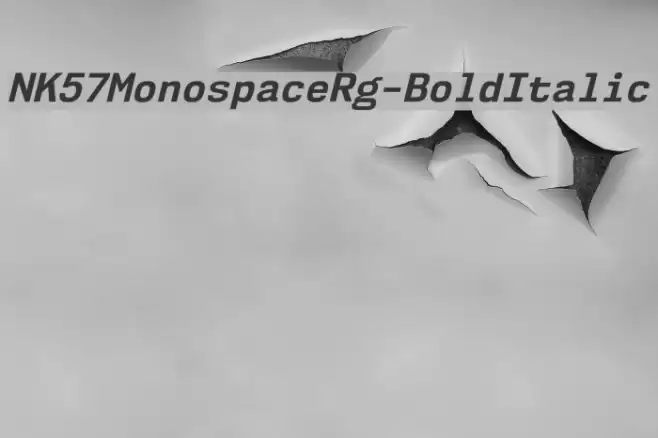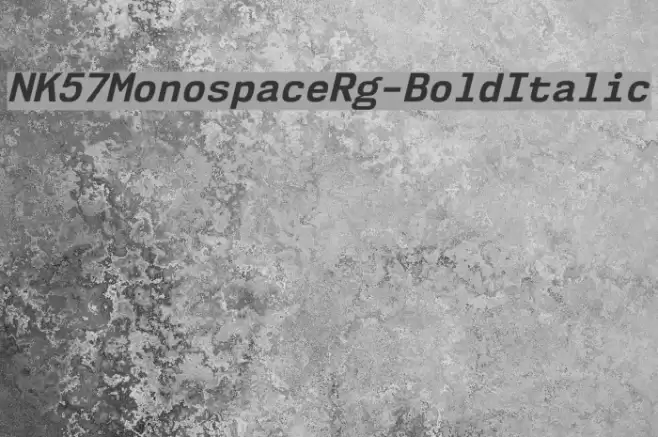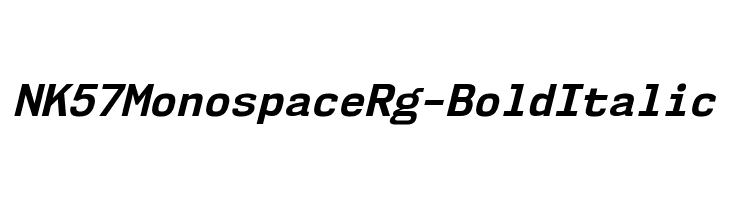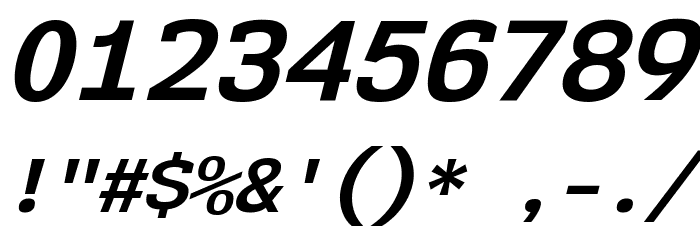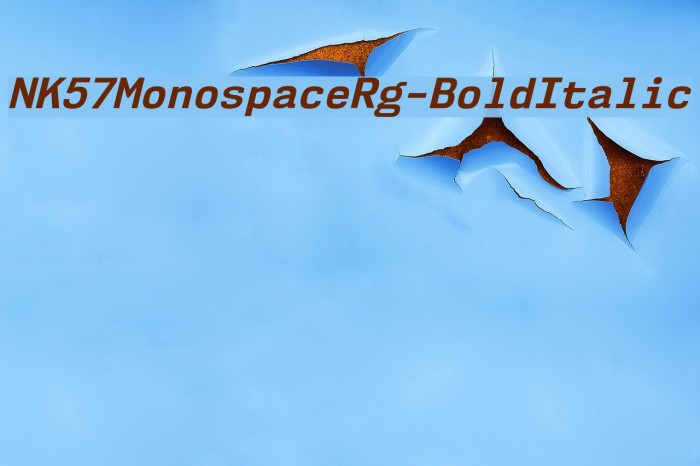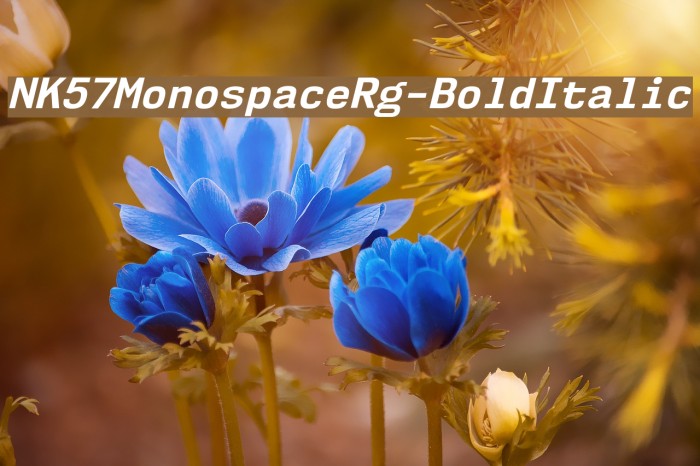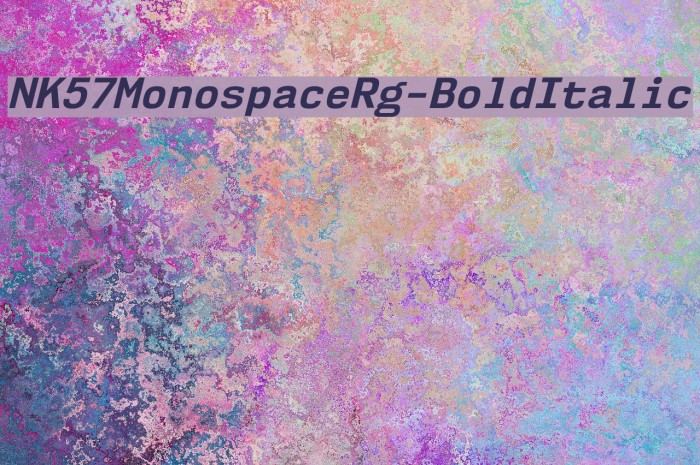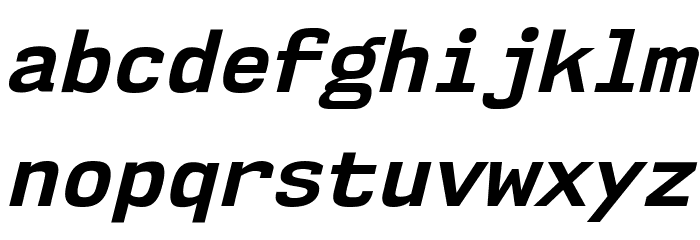
NK57MonospaceRg-BoldItalic Font
NK57MonospaceRg-BoldItalic Description
This font features a bold and italicized style with a monospaced design, ensuring each character occupies the same amount of horizontal space. The strokes are consistent and uniform, providing a clean and structured appearance. The italic slant adds a dynamic and modern touch, making it suitable for technical and coding applications. The characters are well-defined with a medium contrast, offering clarity and readability. The overall aesthetic is functional yet stylish, ideal for conveying information in a precise manner.
A bold, italicized monospaced font with a modern and structured design from Basic fonts.
- Proposed Projects: Ideal for coding environments, technical documentation, and digital interfaces where clarity and uniformity are essential.
- Use Case: Coding, Technical documentation, Digital interfaces